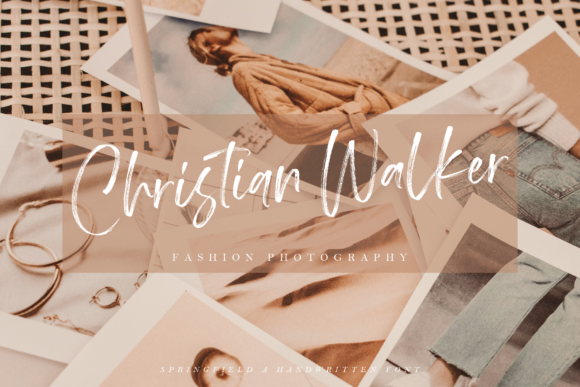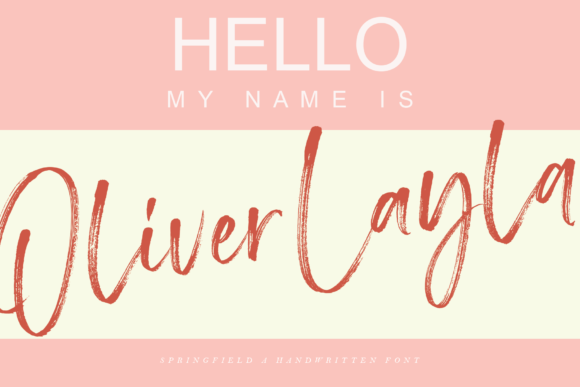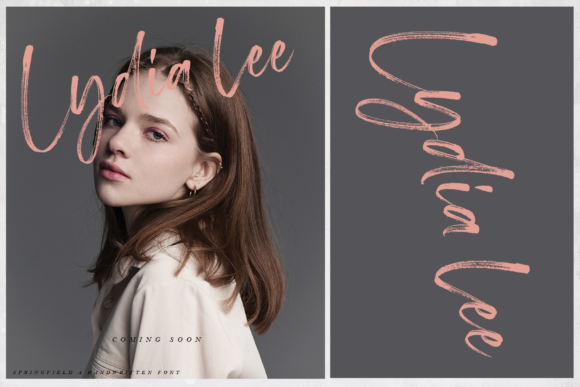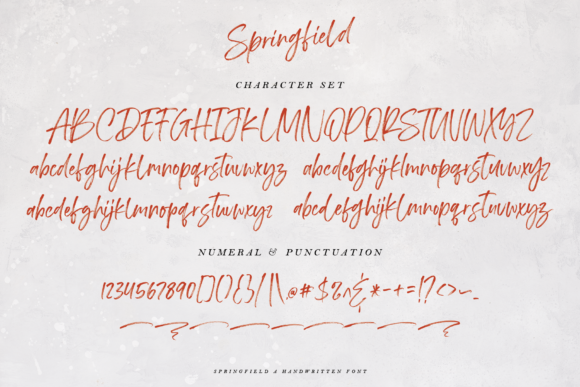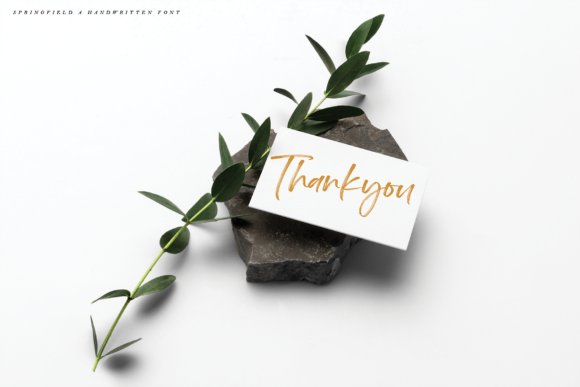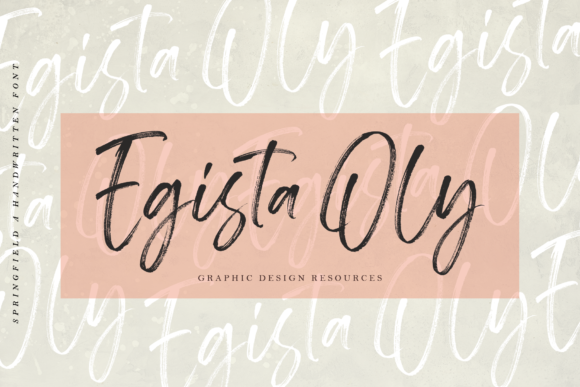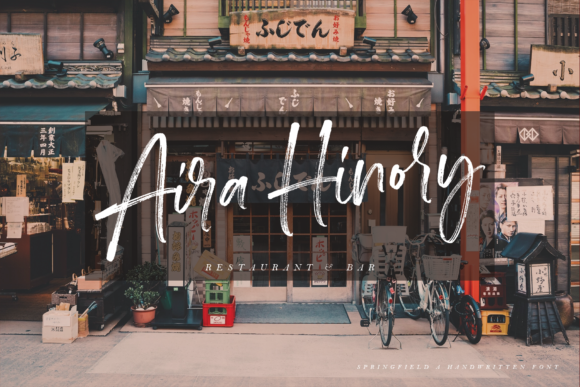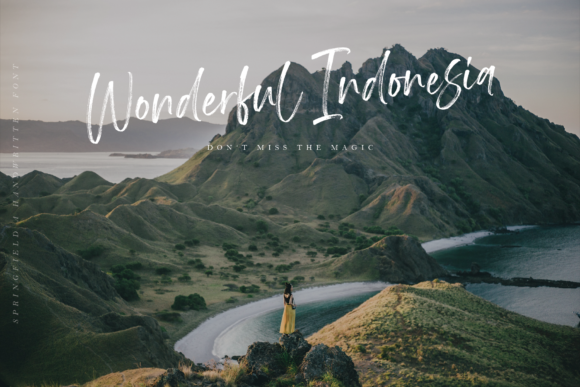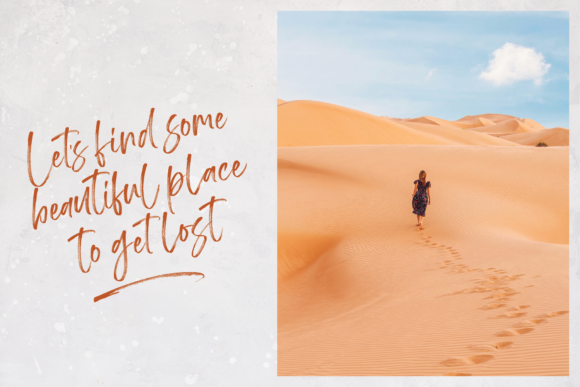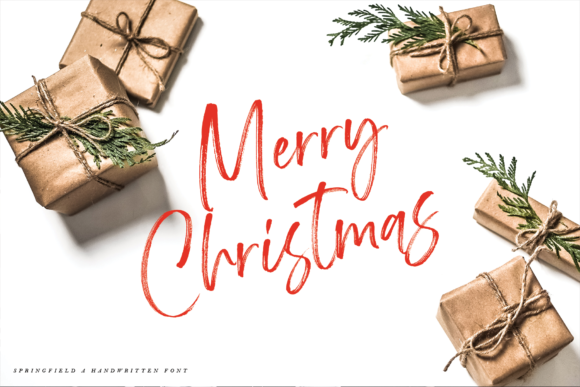
Springfield Font
About Springfield Font
Springfield is an elegant handwritten font. It can be used for various projects such as wedding invitations, social media, logos, branding, graphic design, album covers and more. Add it to your most creative ideas and notice how it makes them come alive!